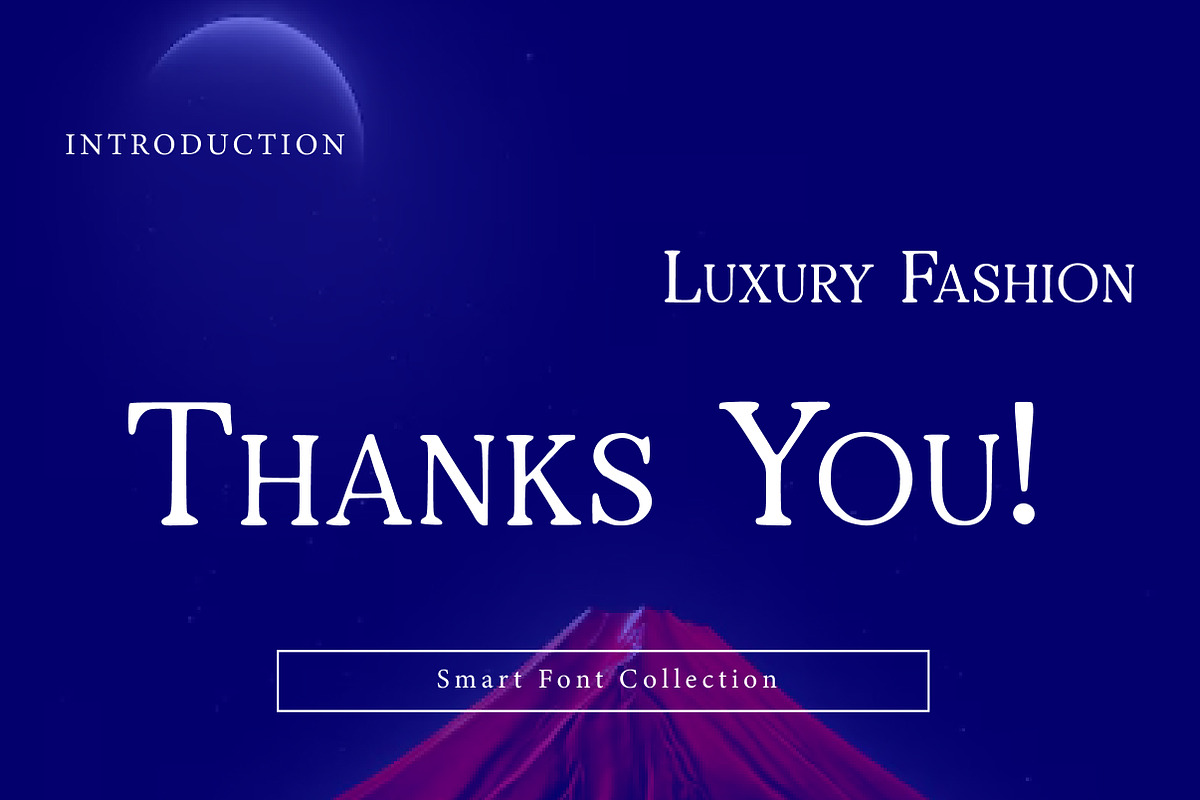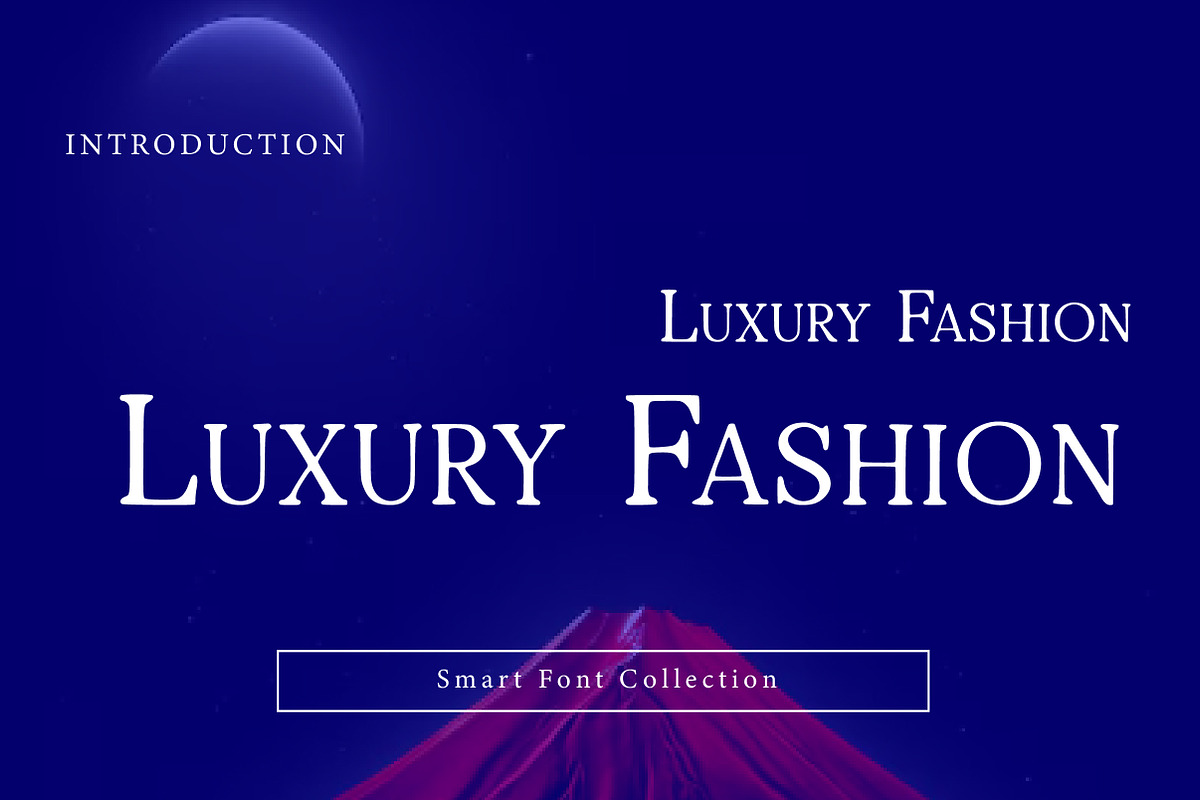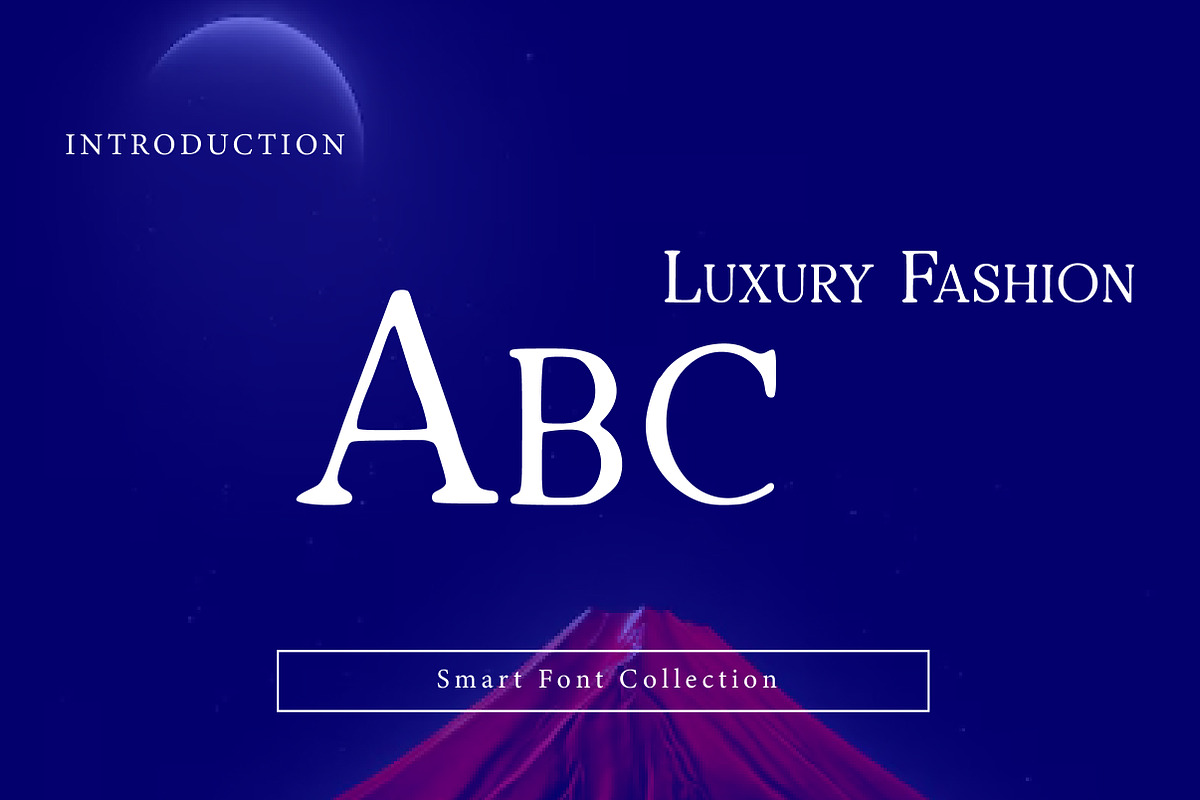
Luxury fashion
Luxury Fashion is a modern, elegant, and premium serif display font crafted for high-end branding and fashionable editorial design. With its clean serif details, refined proportions, and timeless luxury aesthetic, this typeface is perfect for designers who want typography that feels exclusive, stylish, and sophisticated.
Inspired by fashion magazines and luxury brand identity, Luxury Fashion works beautifully for logos, fashion labels, beauty product packaging, magazine headlines, wedding invitations, boutique branding, and upscale advertising designs. Its minimal yet classy letterforms give your design a polished look while maintaining strong readability.
Whether you're designing for a luxury clothing brand, creating a premium logo, styling an editorial cover, or producing elegant product labels, Luxury Fashion adds a high-end serif tone that elevates your design instantly. The font performs best in large titles and branding use—perfect for modern editorial typography and premium display layouts.